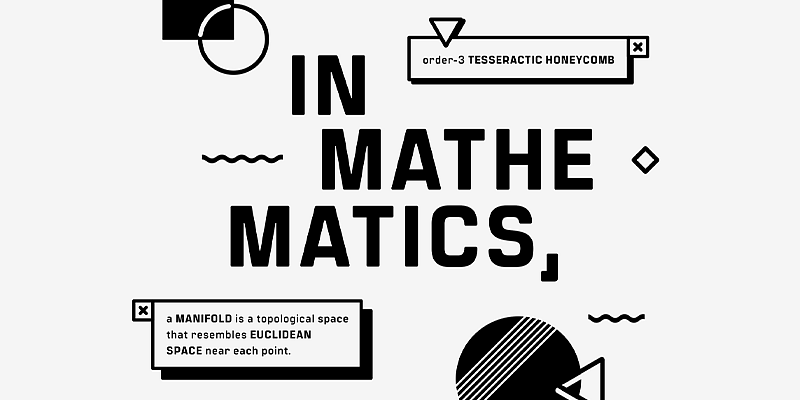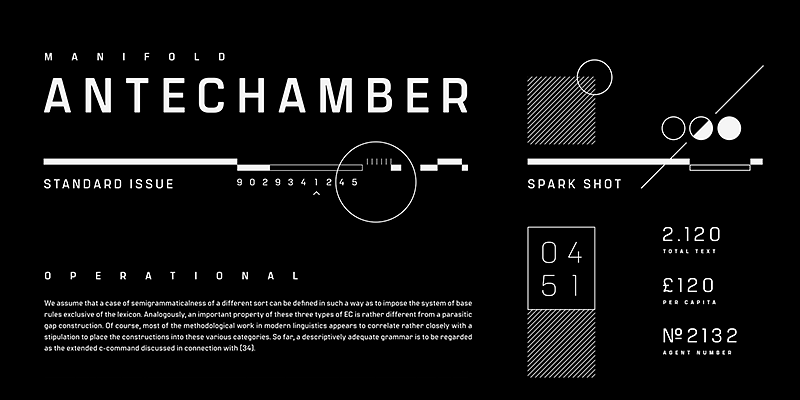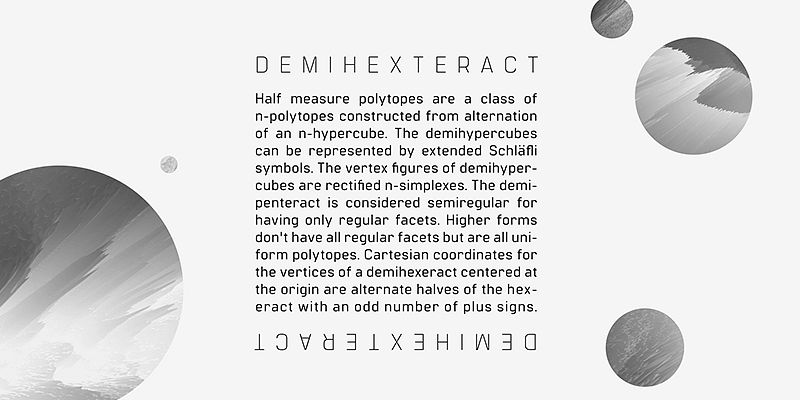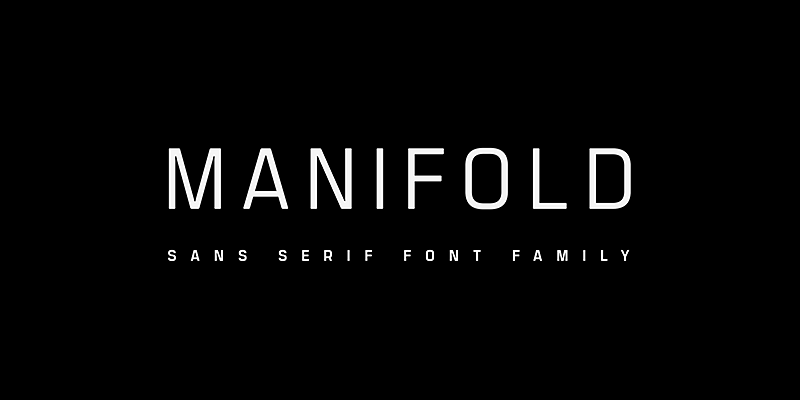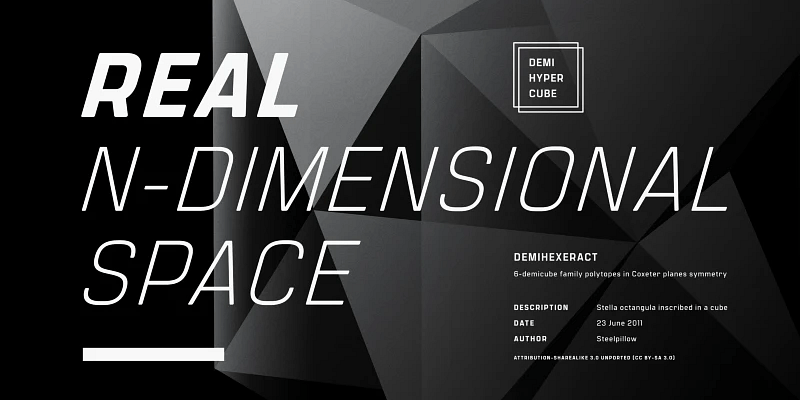
Manifold CF is a utilitarian sans serif that merges terminal-inspired precision with a warm, unified structure and a tall x-height. Ideal for interfaces, short copy, and — tracked out — cinematic titles and headlines. The Extended style pushes this engineering further, creating wide, confident forms suited for tech, sports, editorial, and bold branding. With eight weights, matching italics, and support for Latin, Cyrillic, and Vietnamese, it covers more than thirty languages.